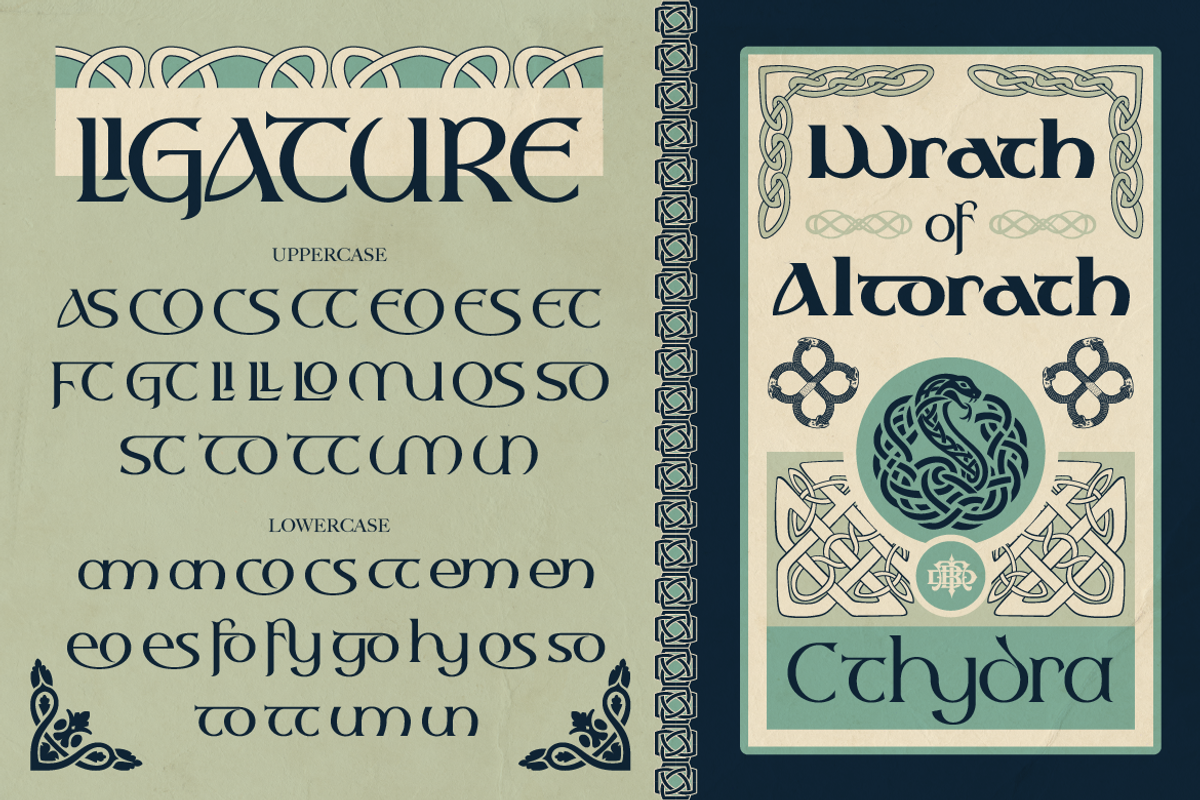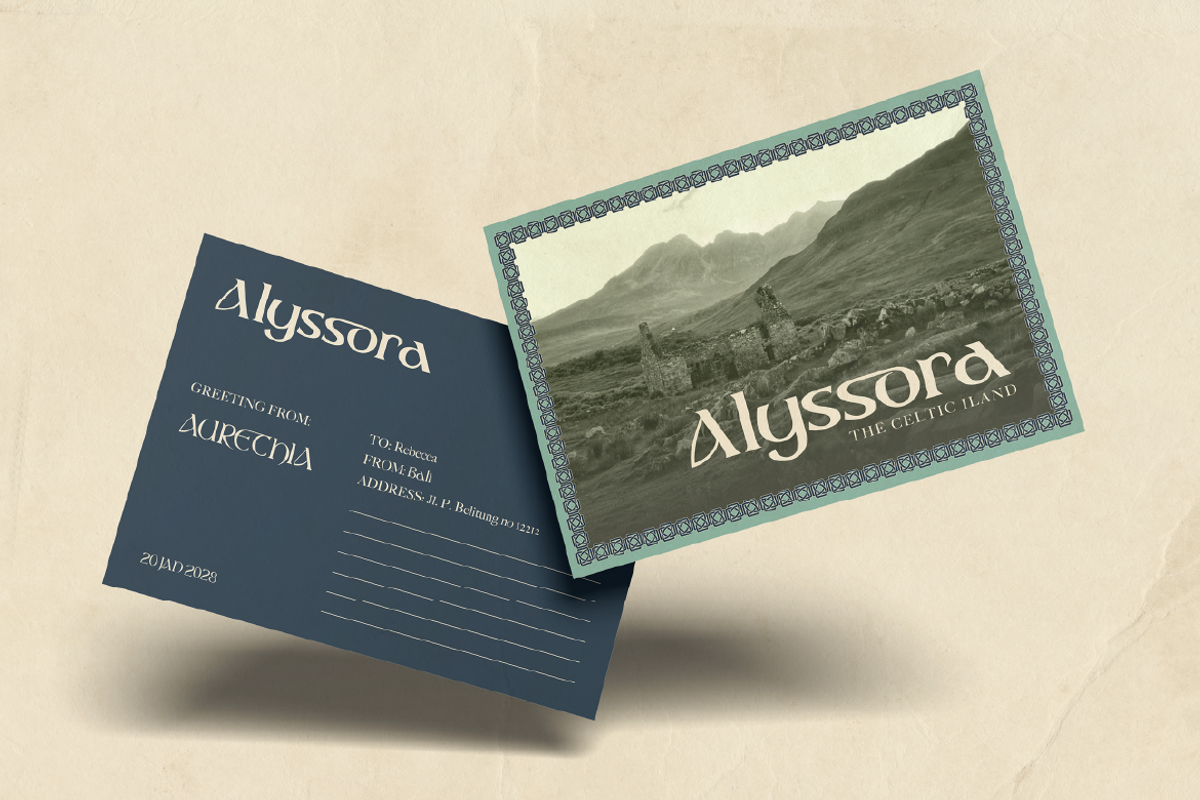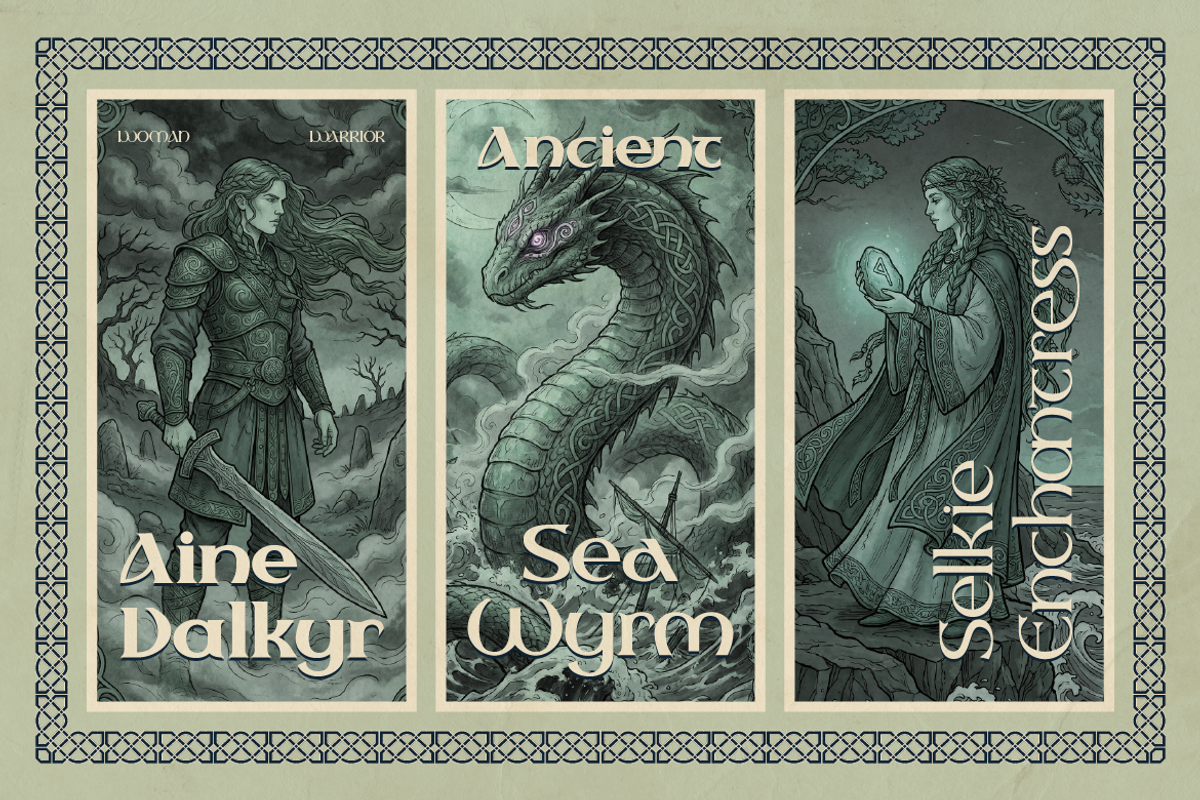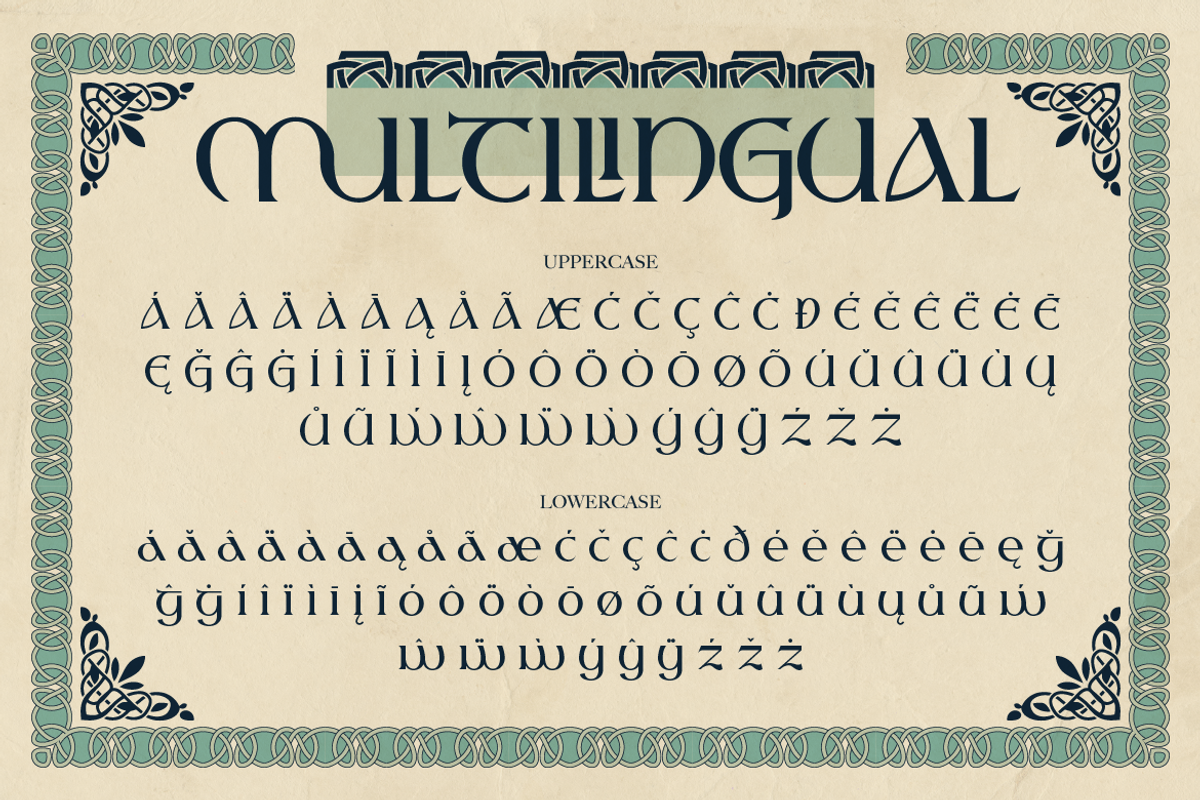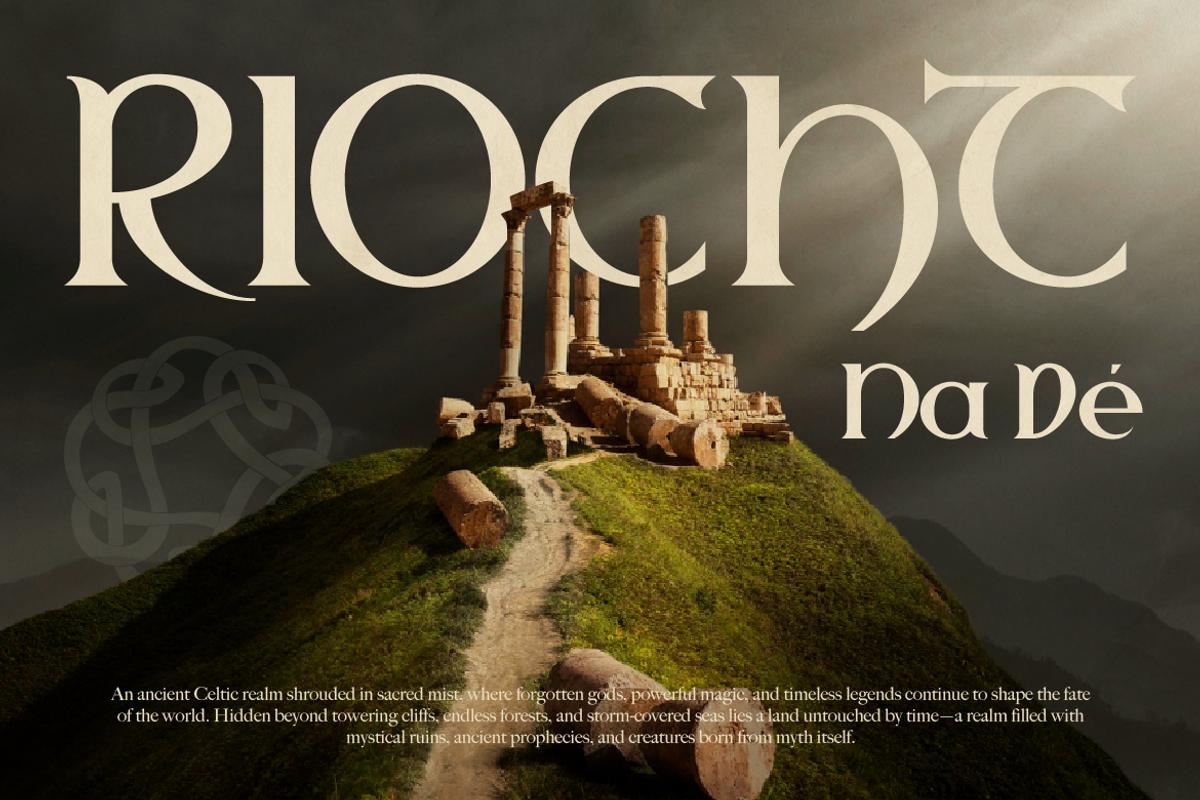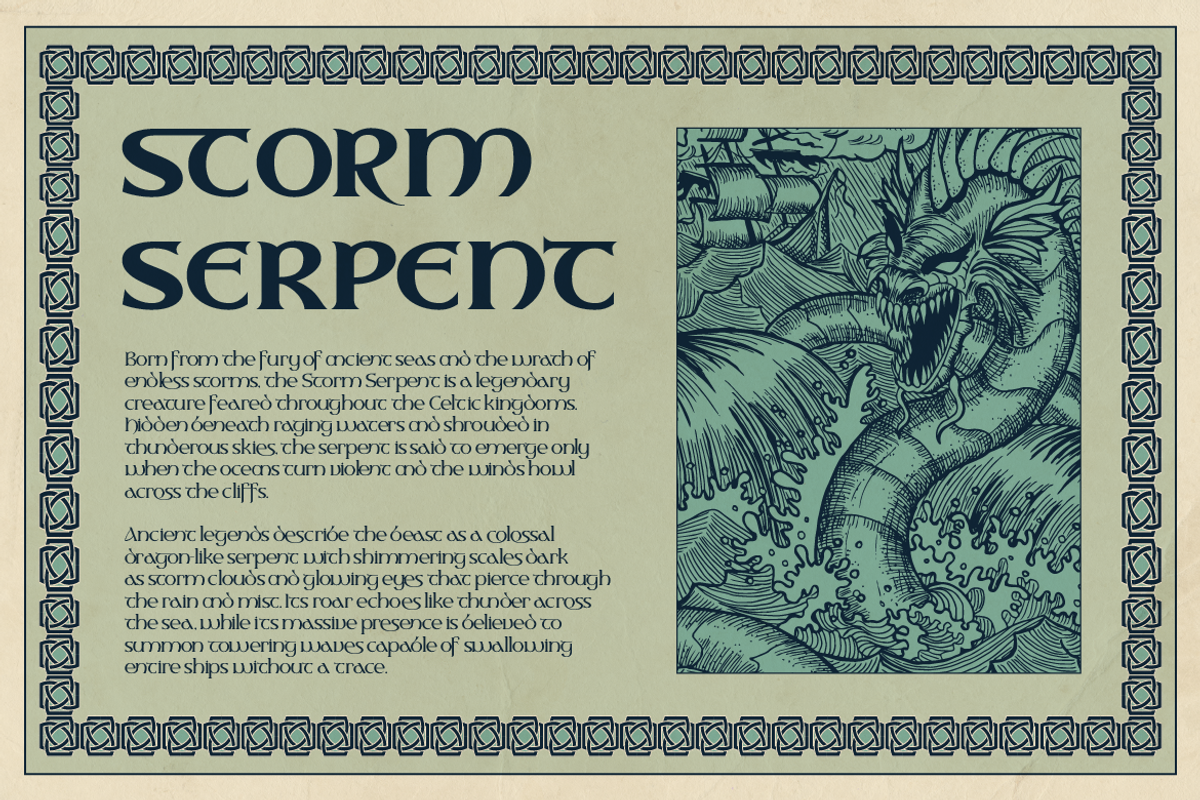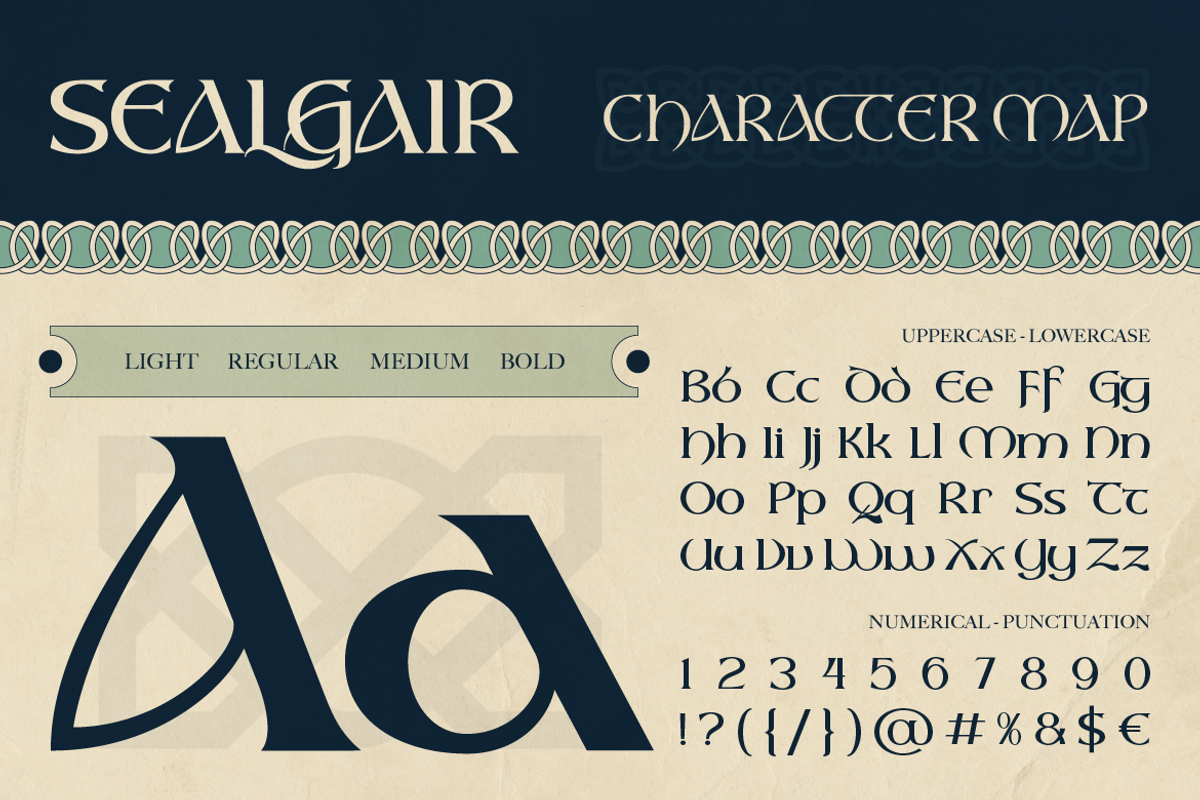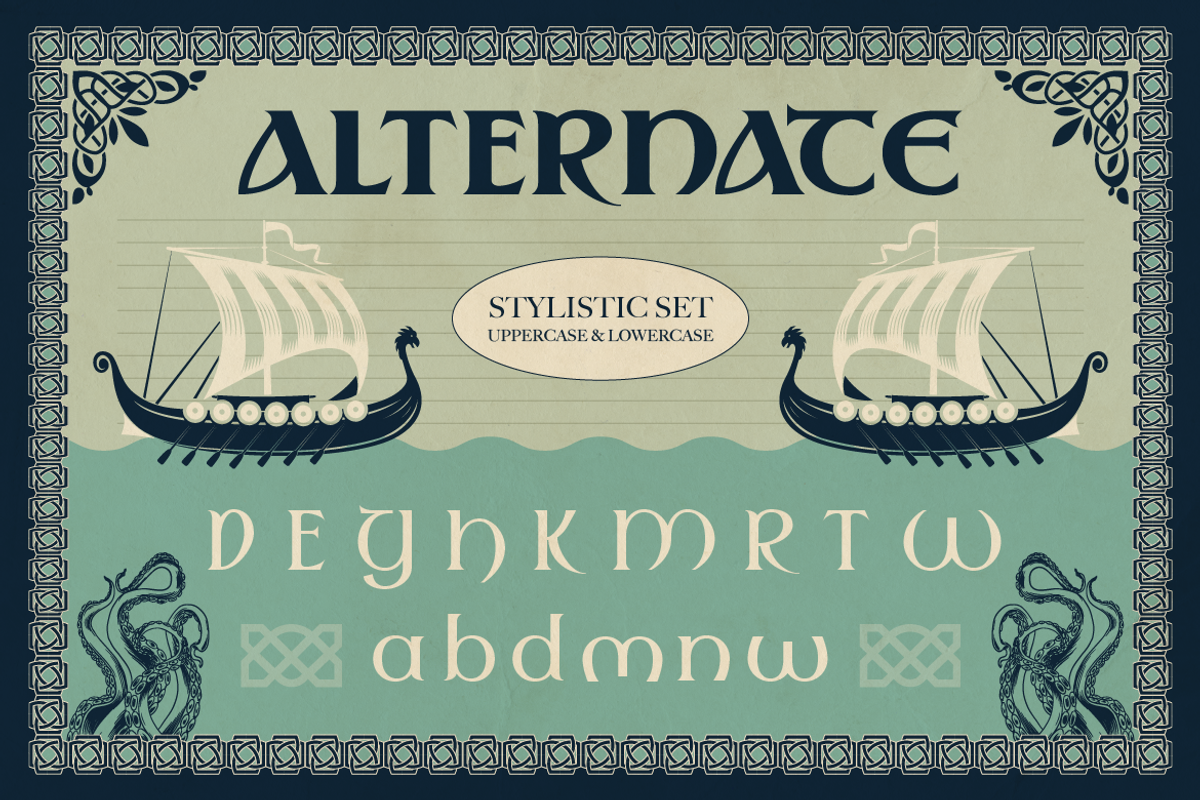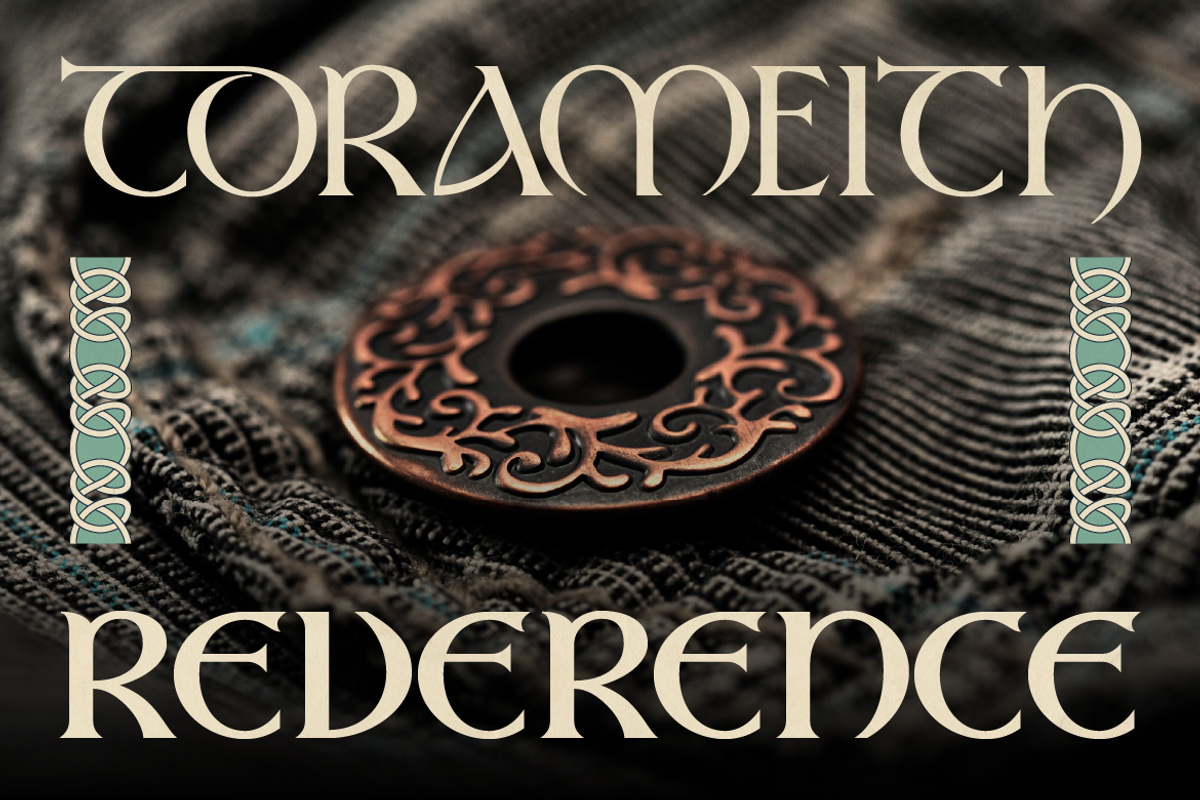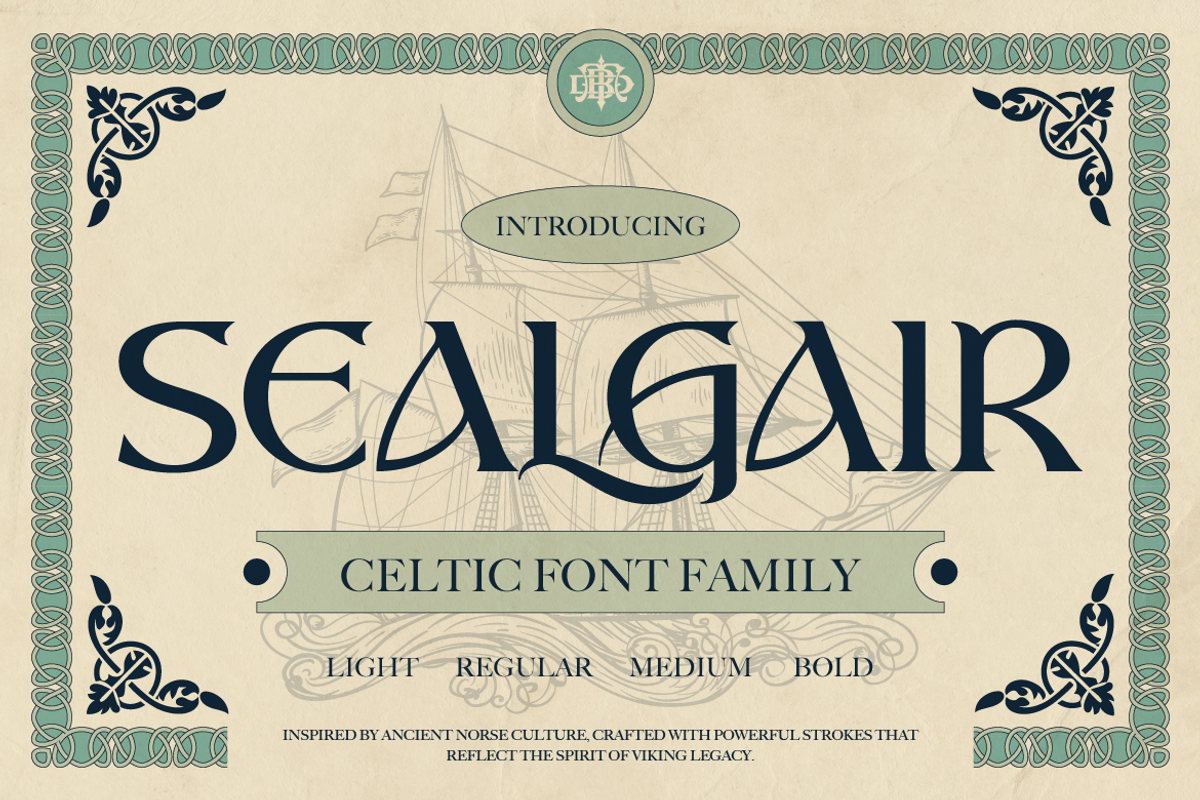
Sealgair
Sealgair is a powerful and elegant Celtic font family inspired by ancient Norse and Gaelic aesthetics. Crafted with distinctive curves, sharp edges, and ornamental flow, this typeface captures the spirit of mythology, warriors, and timeless legends.
Designed to bring a bold historical character into modern design, Sealgair blends traditional Celtic style with clean readability, making it perfect for both display and creative branding needs.
With multiple weights **(light, regular, medium, bold) **and stylistic alternates, you can easily create dynamic, authentic, and visually rich typography compositions.
Celtic & fantasy-themed designs
Movie titles & game UI
Book covers & editorial layouts
Branding & logo design
Posters & merchandise
Tattoo design inspiration
Packaging with a mythical or historical vibe